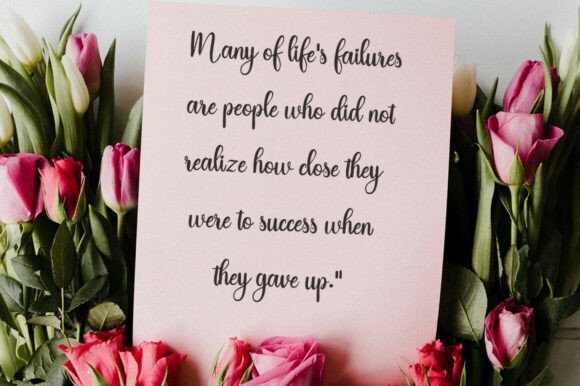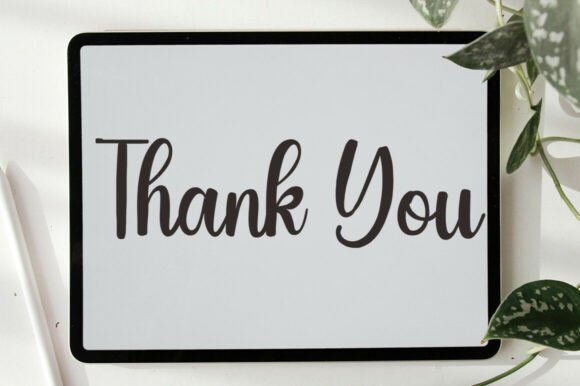
The Bride Minimalist Font: A Modern Script Calligraphy Dream
Have you ever been in the middle of a design project, and suddenly, you’re stuck on finding the perfect font? I recall a wedding stationery project where I struggled to find a font that was both romantic and minimalist. That’s when I discovered the Bride Minimalist Font, a modern script calligraphy font that has since become a staple in my design toolkit.
• ✨ Smooth, handwritten elegance: The Bride Minimalist Font exudes a sense of sophistication and refinement, making it perfect for wedding stationery, branding, and invitations.
• ✅ Playful, romantic twist: The subtle heart-inspired dots and flowing strokes add a touch of whimsy and charm to any design.
• ✅ Consistent stroke weight: The font’s clean and versatile design makes it easy to pair with serif or sans-serif companions for a refined, contemporary look.
• ✅ Well-balanced letterforms: The font’s careful craftsmanship ensures that each letterform is beautifully proportioned, making it a joy to work with.
While the Bride Minimalist Font is an excellent choice for many design projects, there are a few minor quirks to be aware of:
• ⚠️ Limited use of uppercase letters: As a script font, the uppercase letters may not be as versatile as you’d like, but the lowercase letters more than make up for it.
• 🤔 Requires careful kerning: As with any script font, some manual kerning may be necessary to achieve optimal results.
The Bride Minimalist Font was crafted with the modern designer in mind. Its creator aimed to create a font that blended smooth, handwritten elegance with a playful, romantic twist. The result is a font that’s both refined and charming, perfect for a wide range of design projects.
Q: What makes the Bride Minimalist Font unique?
A: The Bride Minimalist Font’s unique blend of smooth, handwritten elegance and playful, romantic twist sets it apart from other script fonts.
Q: Is the Bride Minimalist Font suitable for body text?
A: While the Bride Minimalist Font is beautiful, it’s best suited for display text or headings. For body text, consider a more traditional serif or sans-serif font.